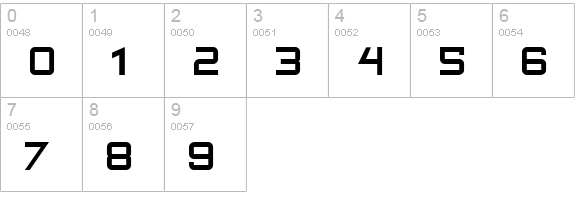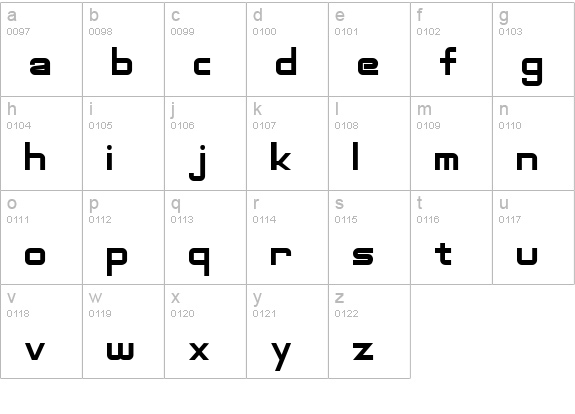
Adventure Subtitles Normal Font Details
Adventure Subtitles Normal is the standard, neutral variant in the Adventure typeface family \xE2\x80\x94 well suited to general body text, paragraphs, and standard typographic work.
Embark on a thrilling journey with Adventure Subtitles Normal font! This versatile typeface is perfect for adding a touch of excitement to your projects, whether you're designing posters, websites, or branding materials. With its bold and dynamic appearance, Adventure Subtitles Normal font is sure to make a statement and capture the attention of your audience. What's even better is that Adventure Subtitles Normal font is available for free download at FontsMarket.com! So why wait? Add a sense of adventure to your designs today with this captivating typeface.